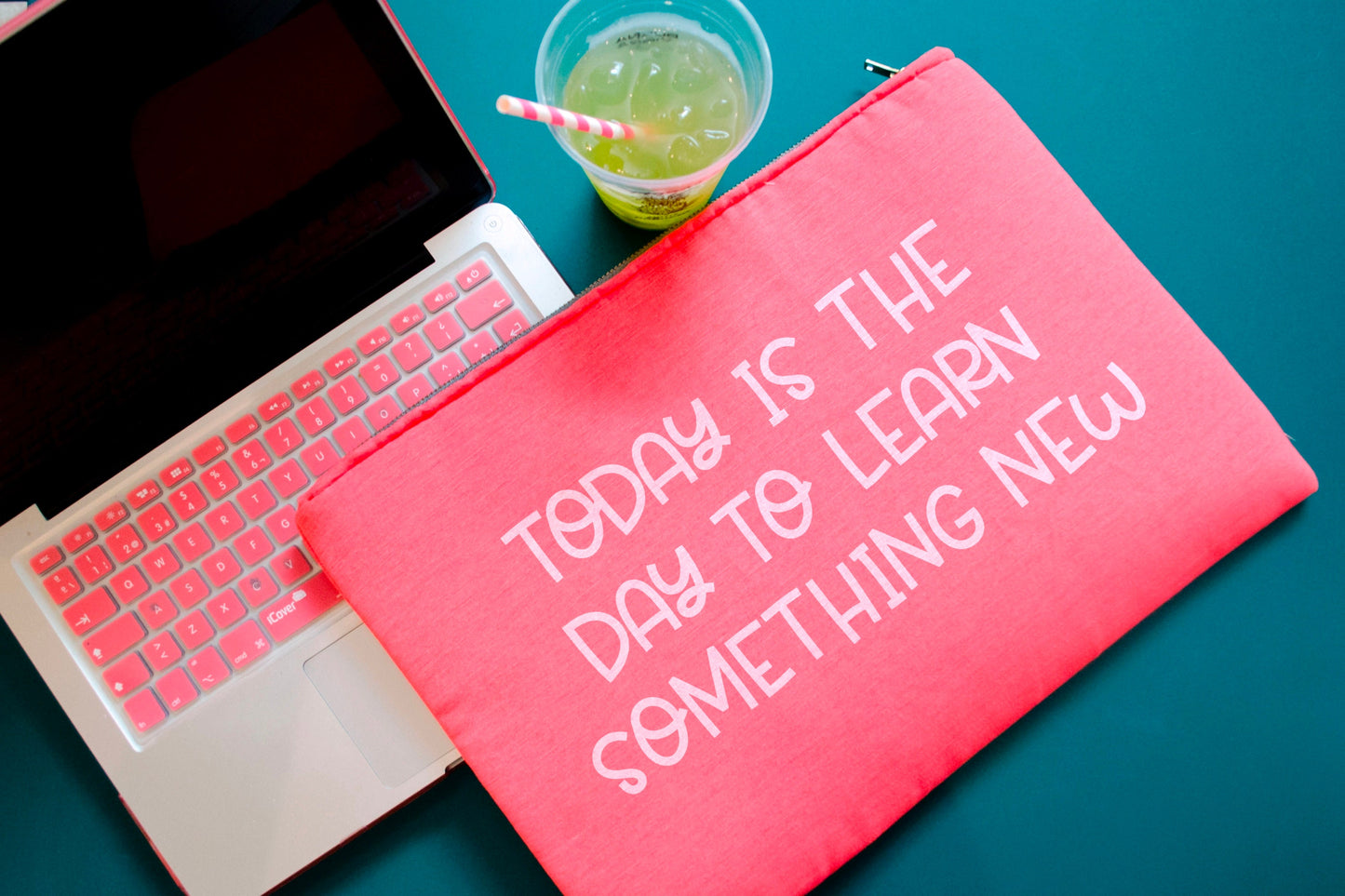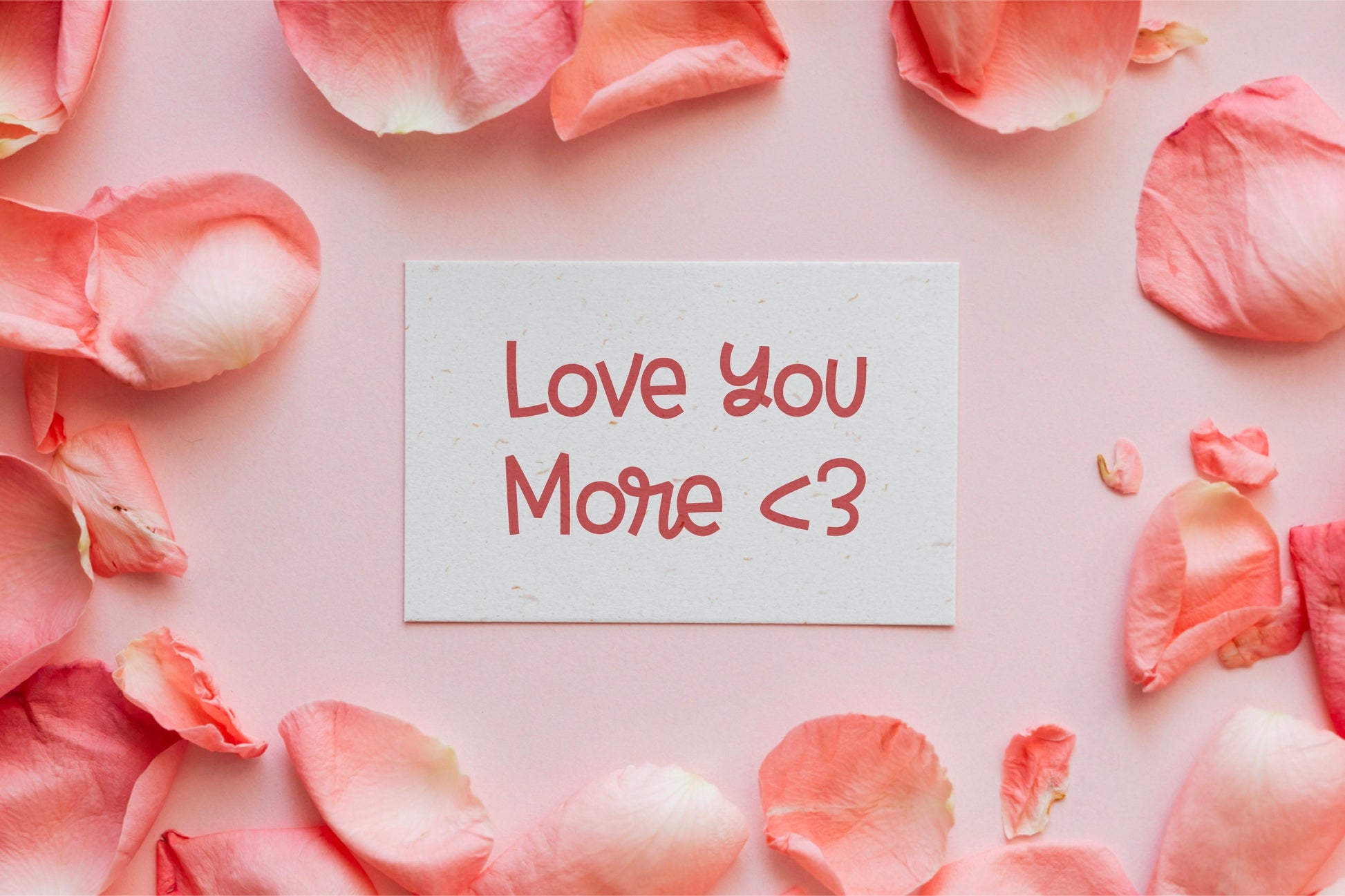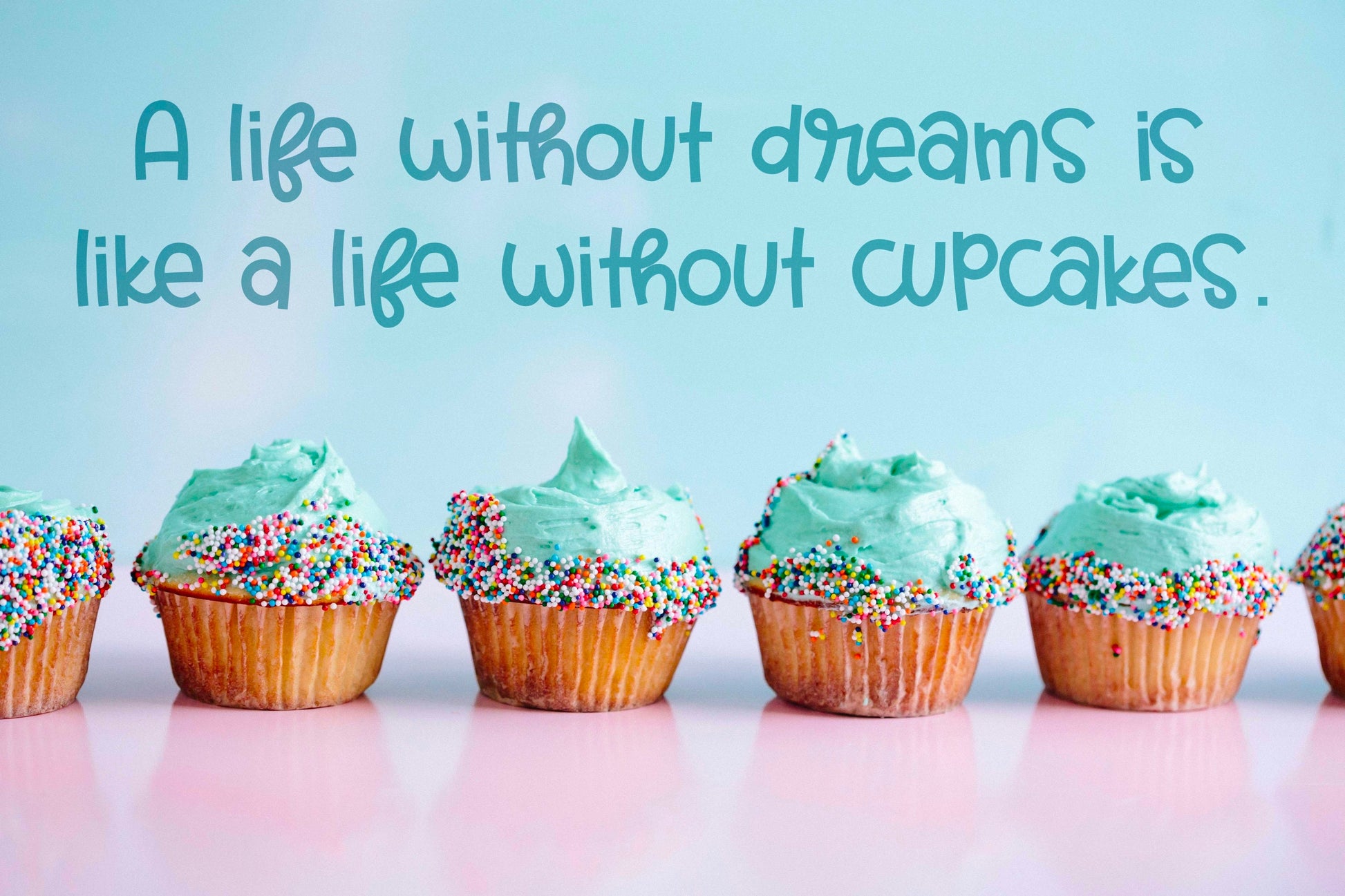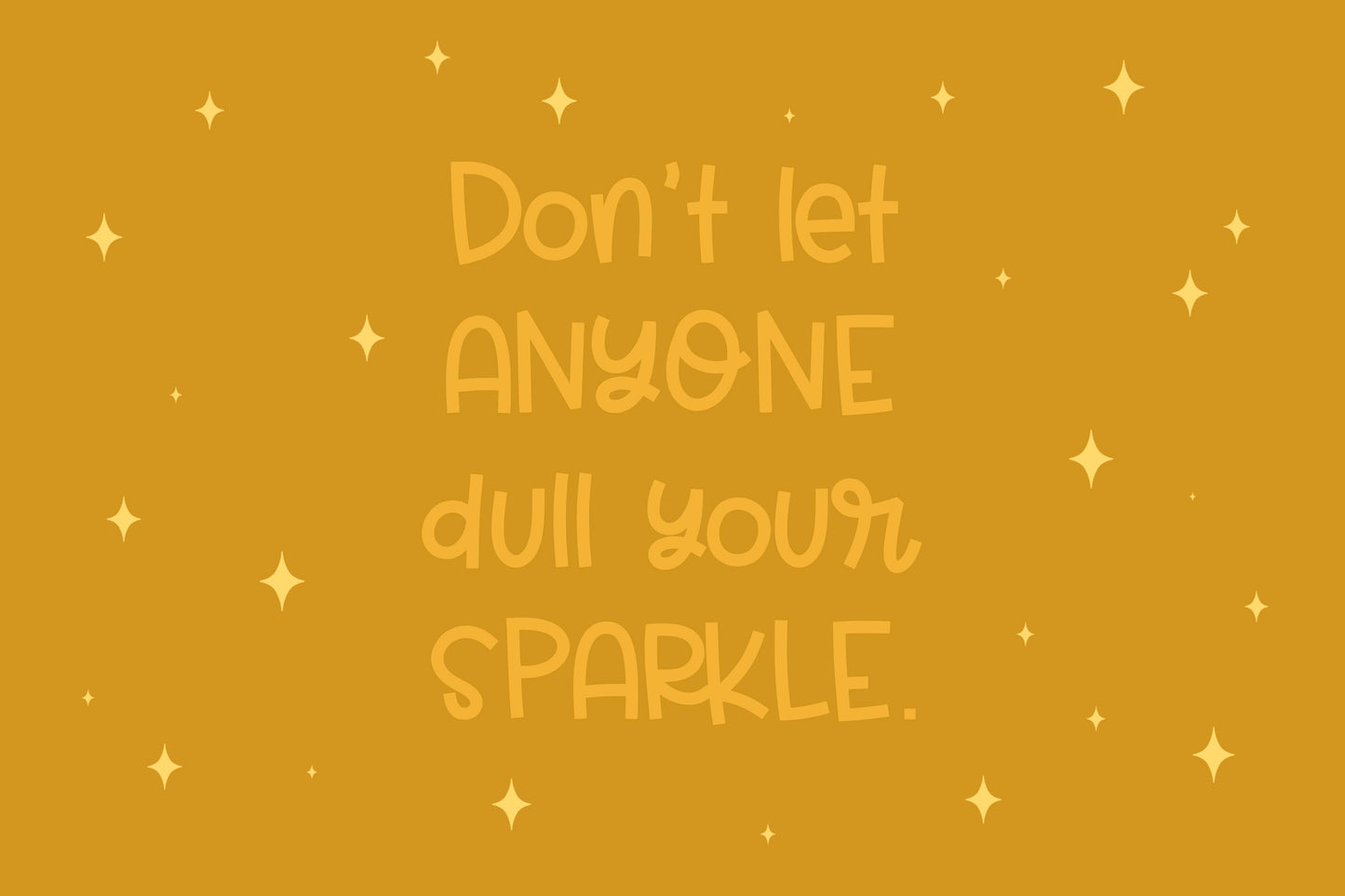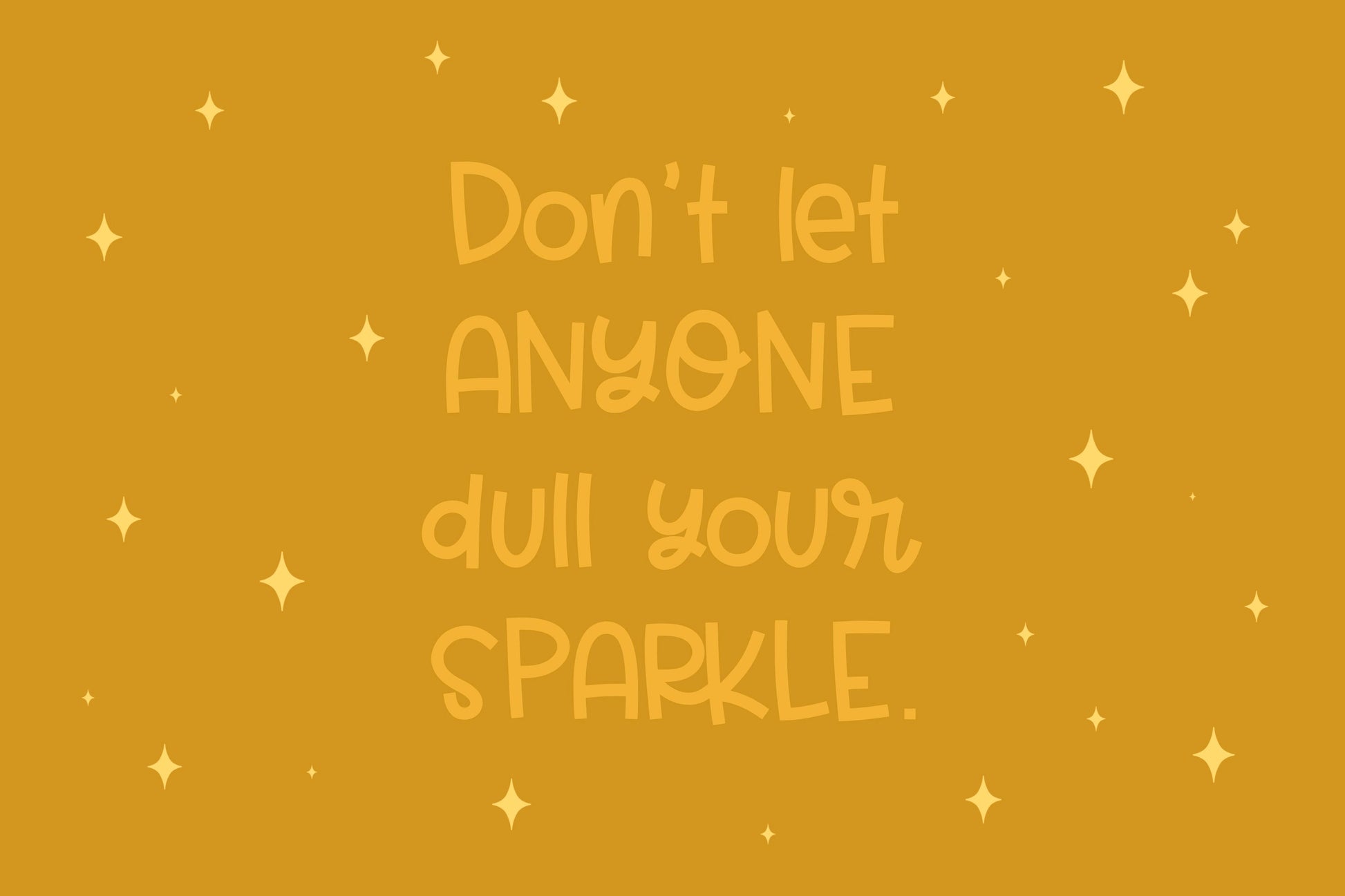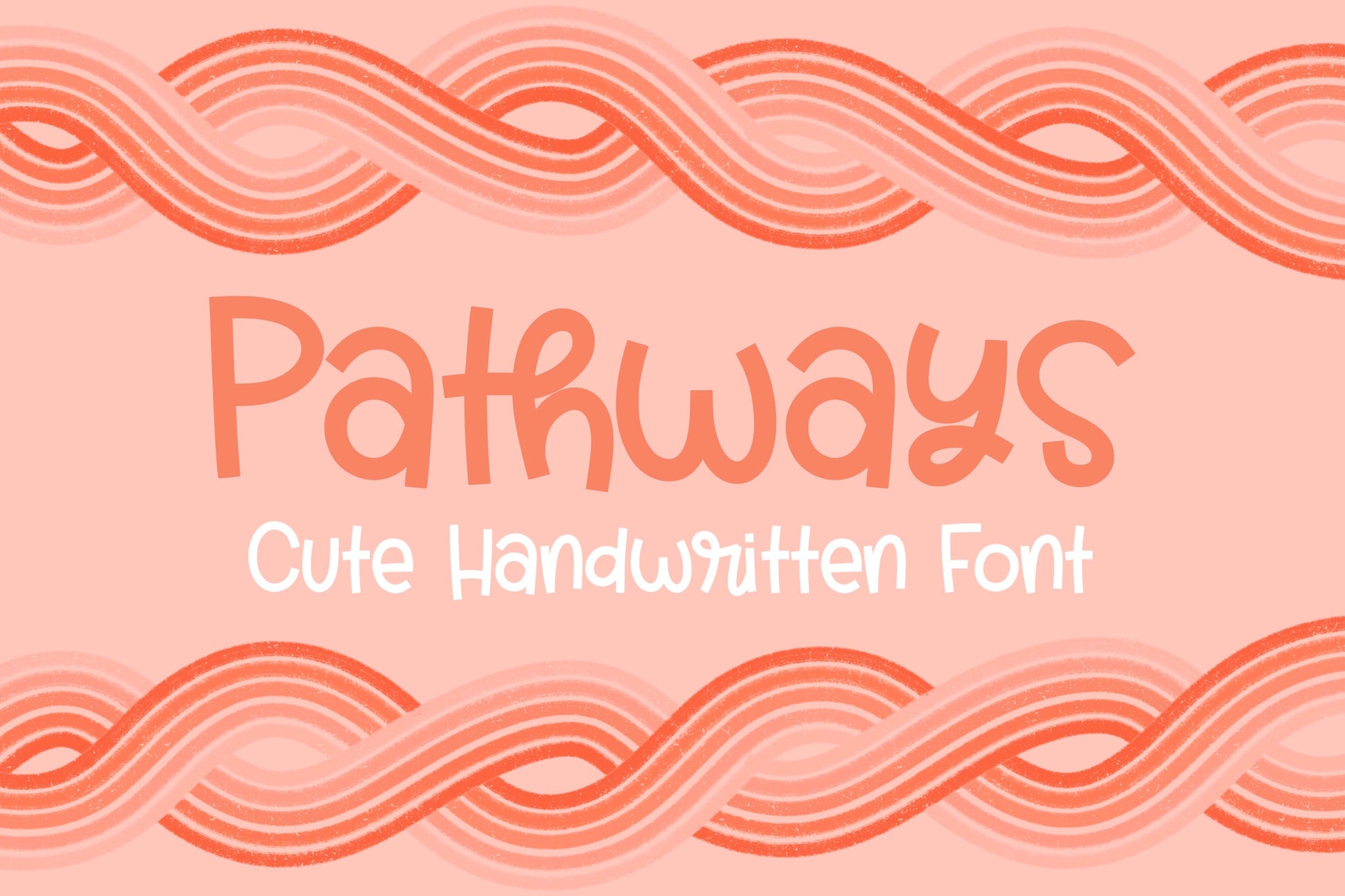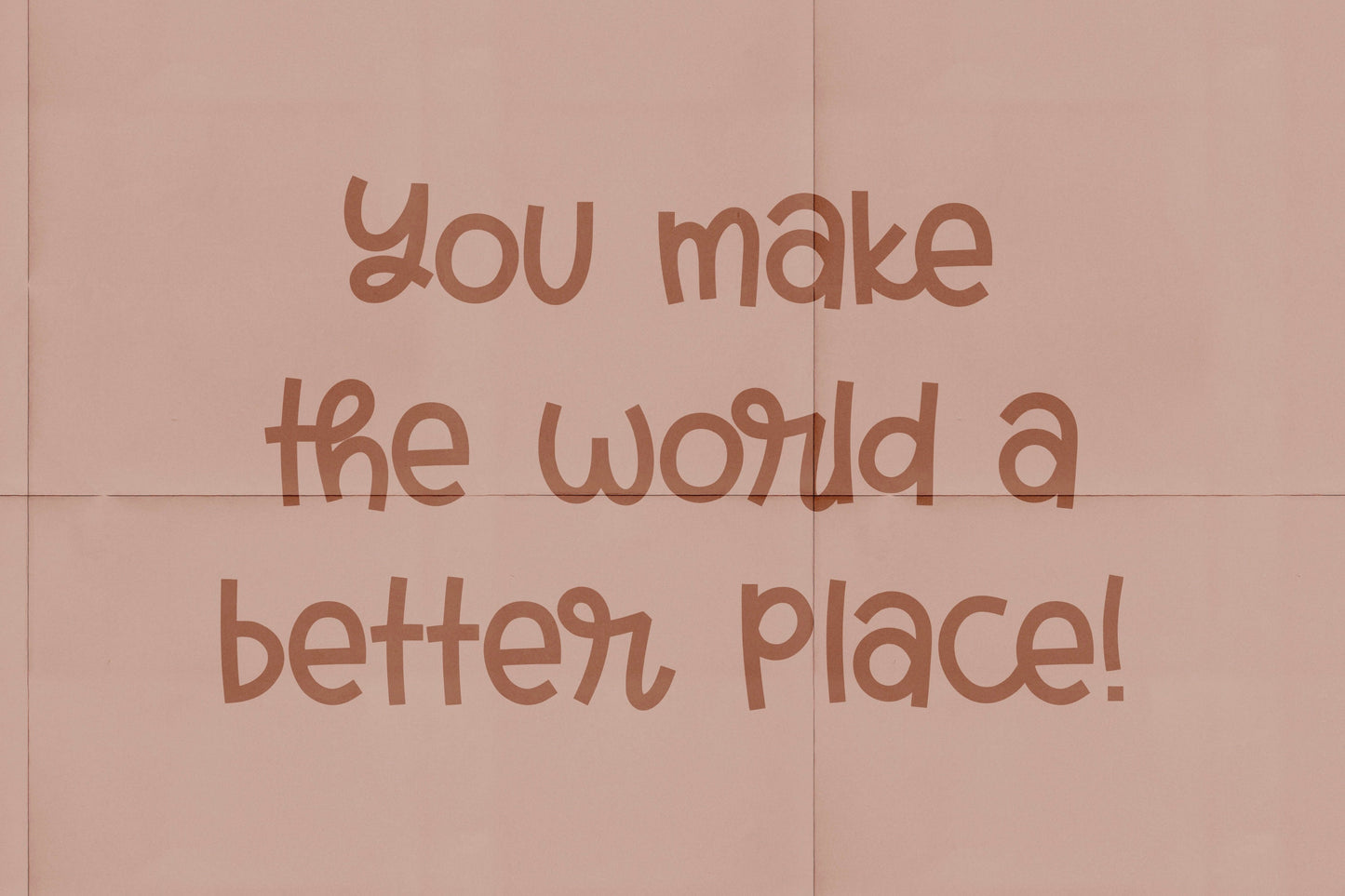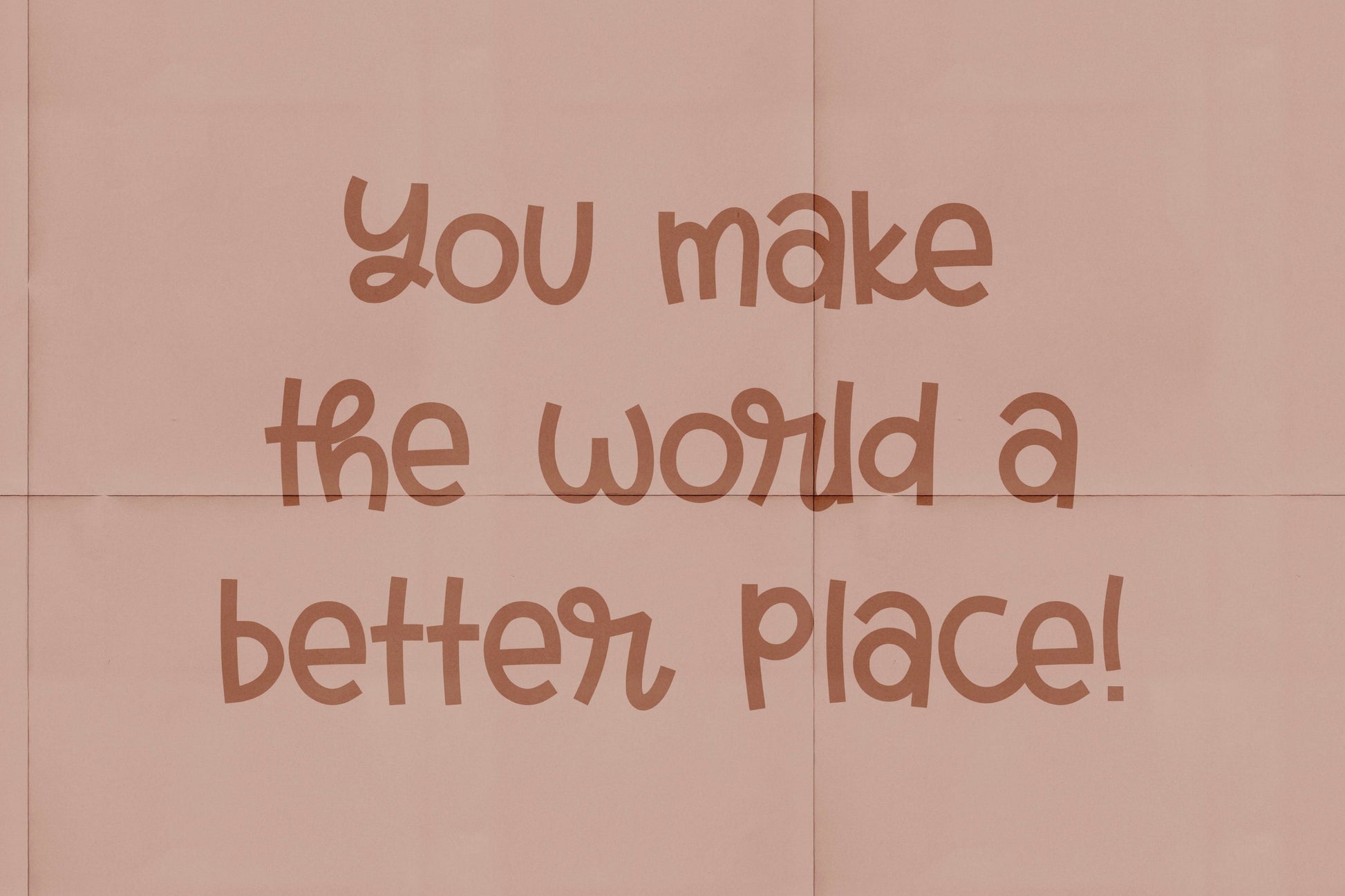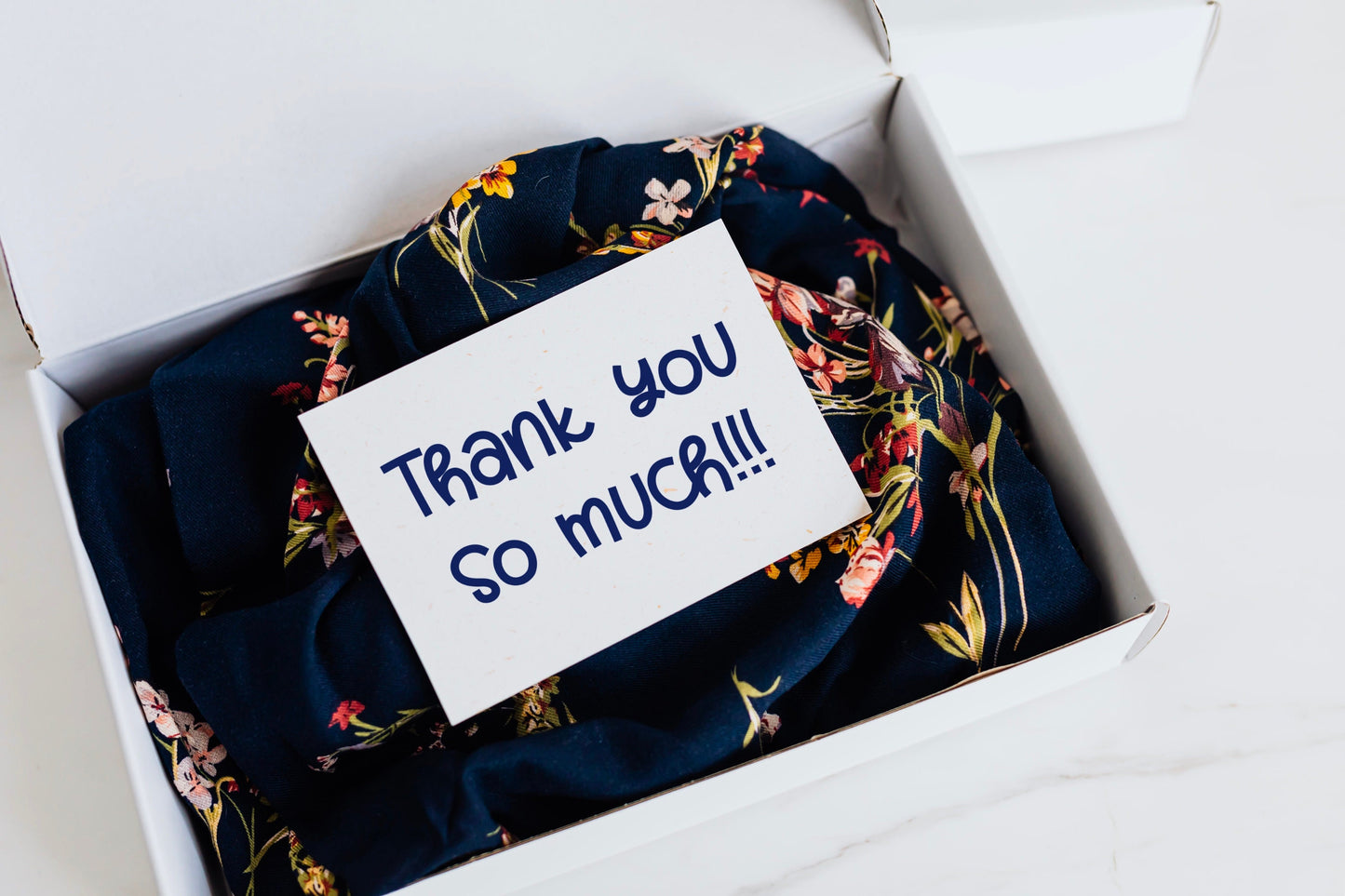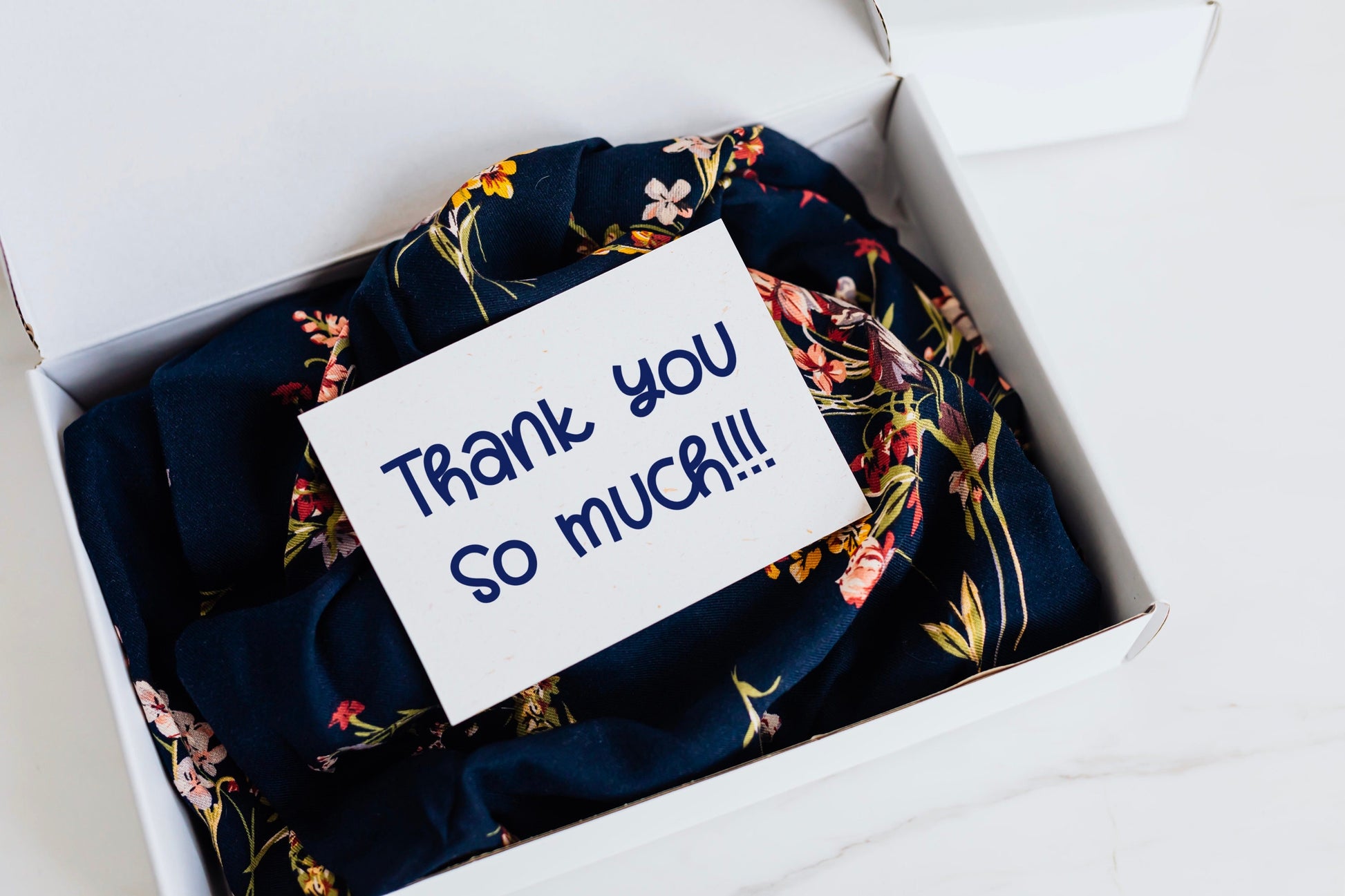
Pathways Handwritten Font
This is my Pathways handwritten/hand drawn font. This unique, modern font with squared off edges will add a fun, cute, handmade touch to your design! This font is versatile and great for casual, playful occasions, designs, and logos!